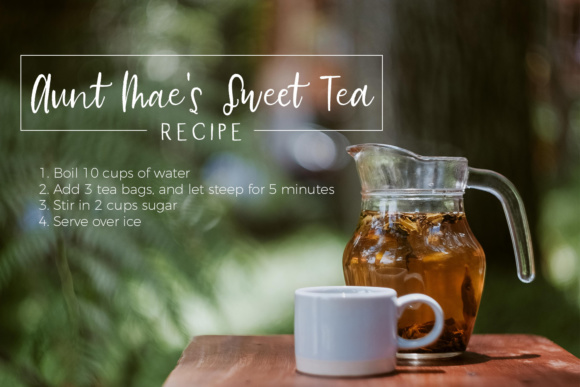
Farmhouse Country Font
db-ku.com - Script & Handwritten -- Welcome to Farmhouse Country, a stunning textured font duo sure to be perfect for all of your shabby chic font needs.